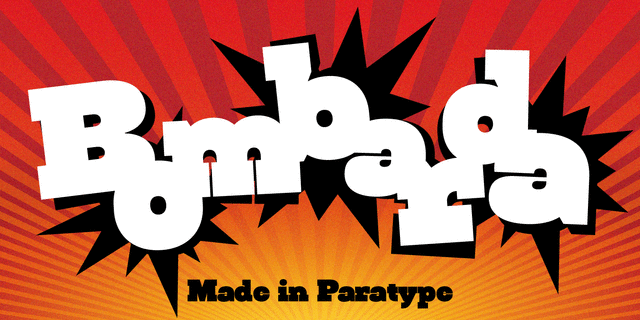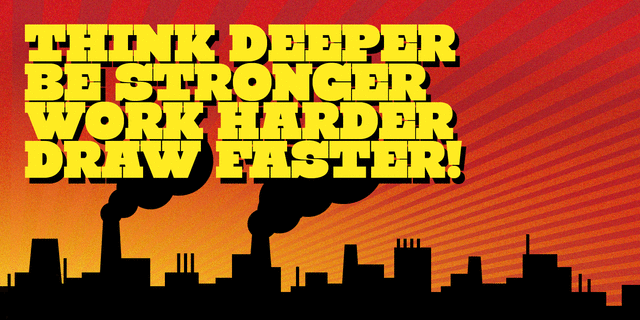
About Bombarda is a big gun, and surely a font named like that must have specific dimensions in order to make the text sound loud and powerful. Due to extreme thickness of basic strokes and of maximum possible serifs it will look great on the cover of a comic book, colorful splash screens of computer games as well as other applications where the title should have particular weight. The font was designed by Alexander Lubovenko and released by ParaType in 2016.
Associations for font family BombardaTypeface personality and character:
convincing, black, ironic, significant, steel, square, formidable, cowboy, witty, cartoonish, extravagant, manly, self-assured, durable, severe, industrial, flat, crisp, dense, military, army, monumental, iron, ambitious, stable, static, fat, persistent, close-fitting, massive, heavy, bulky, strange, distinctive, original, shocking, experimental, bright, active, tough, strong, powerful, solid, voiced, loud, splashy, notable, intrusive, important, sharp, dangerous, extremal, daring, macho, risky, urbanistic, street, motivating, explosive, sexy, impudent, criminal, yelling, cinematic, rude, rigid, brutal, game, urban, radical, cocky, boyish, quick-tempered, incendiary
tool, machine tool, factory, metallurgy, truck, cinema, safe, equipment, weapons, excavator, tank, industry, army, airsoft, blockbuster, thriller, action, Shooter, footwear, brick, trucker, steel-maker, miner, city, fitness equipment, attraction, repairs, constructor, toy, revolver, entertainment, advertising, insecticide, game, snack, fast food, meat, stuntman, Extreme, bomb, casino, chips, cubes, lego, rap music, concert, Superhero, computer game, aquadiskotheque, disco, selfie, helmet Typeface associated with age: